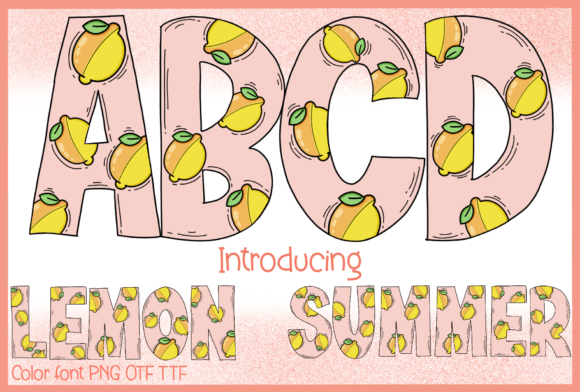
Ignite your imagination and embark on a delightful journey with the Lemon Summer Font, a vibrant and captivating creation from Itme_digitalart. This enchanting font family bursts with charm and personality, making it the perfect choice for those seeking to add a touch of whimsy and playfulness to their creative projects.
Picture yourself crafting stunning digital artwork with the Lemon Summer Font, allowing your creativity to soar as you weave tales and express emotions through captivating visuals. Its simple, yet elegant style lends itself effortlessly to teaching and decorating presentations, making it an invaluable asset for educators and design enthusiasts alike.
Whether you're a seasoned artist or just starting your creative journey, the Lemon Summer Font provides an exceptional foundation for your work. Its suitability for education, advertising, illustration, and a multitude of other applications makes it a versatile tool that can adapt to your ever-changing needs.
Seize this opportunity to embrace the Lemon Summer Font, a font destined to transform your creative endeavors into remarkable works of art. Its vibrant colors and playful spirit will ignite your imagination, propelling you to new heights of artistic achievement.